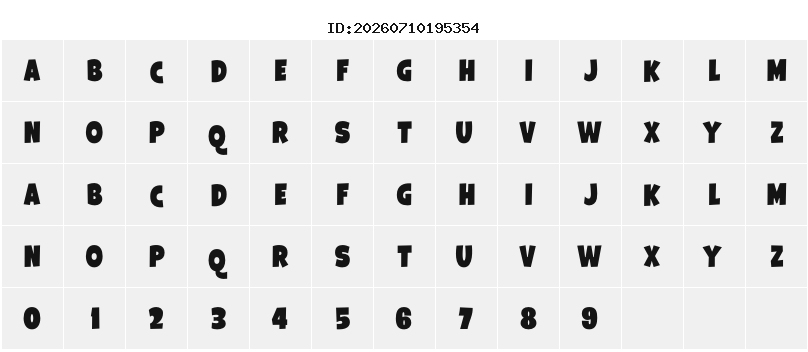
Galpon Black Preview
• Font Name: Galpon Black
• Full Font Name: Galpon Black
• PostScript Name: Galpon-Black
• Designer: Rodrigo Araya Salas
• Manufacturer: Rodrigotypo
About Galpon Black.otf
Galpon Black.otf is a modern, elegant sans-serif font designed for ultimate readability and visual harmony. Perfect for branding, headlines, web design, and print materials.